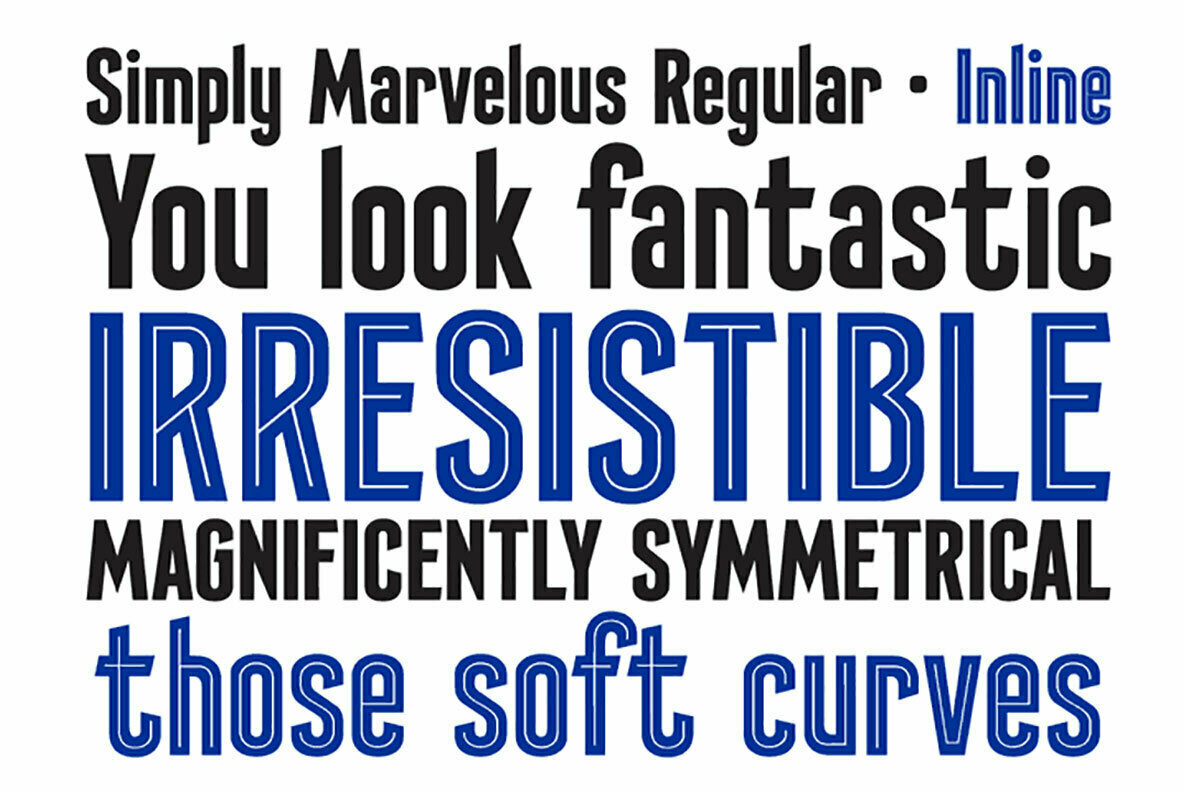
Simply Marvelous Font
CC Simply Marvelous
CC Simply Marvelous Inline
Darling, you don’t just look good, you look fantastic! Irresistible! Immaculate! Those soft curves, those sharp lines, those inlines... that magnificent symmetry. This is a face that could launch a thousand spaceships, a face that doesn’t care if you feel good, because heavens to betsy, you look good. Just utter those magic words: simply marvelous.